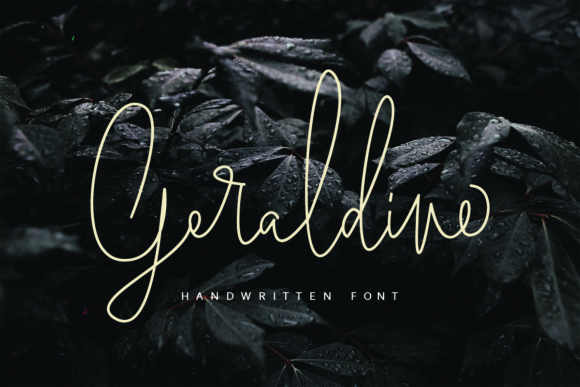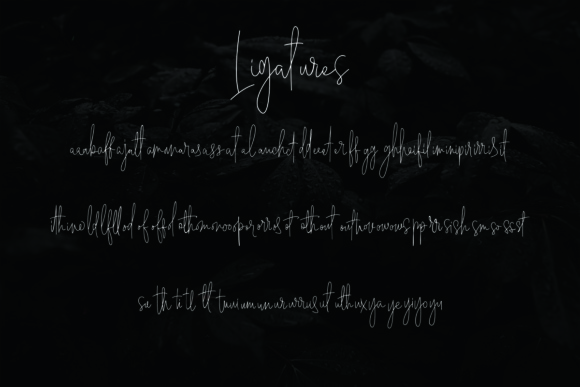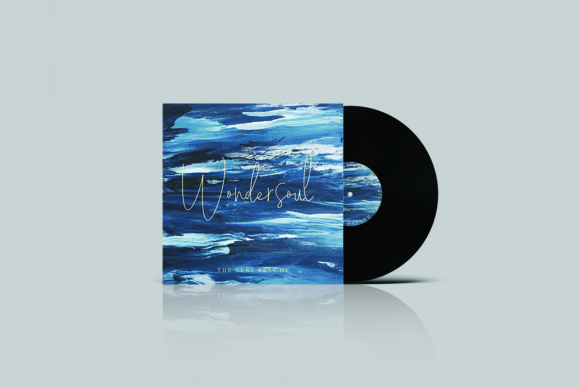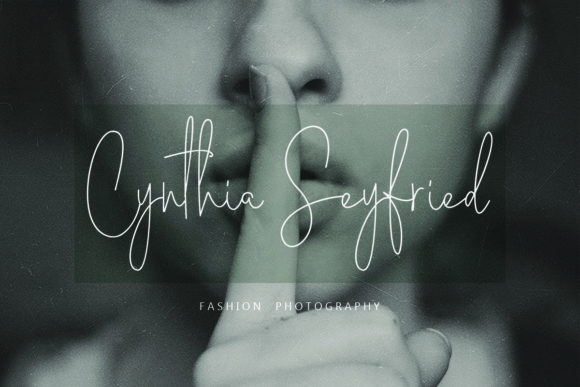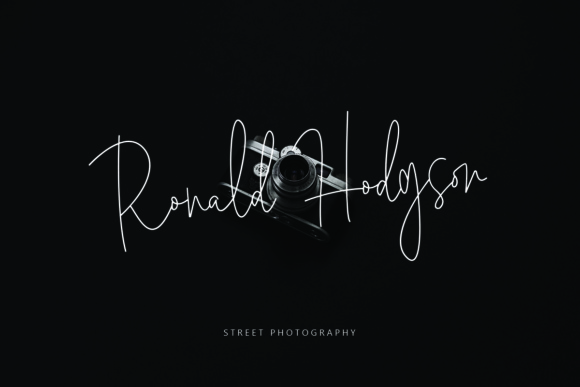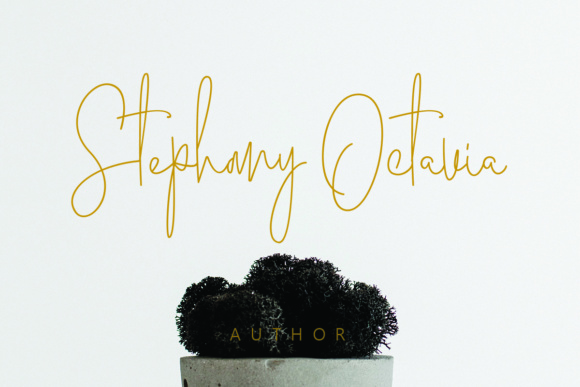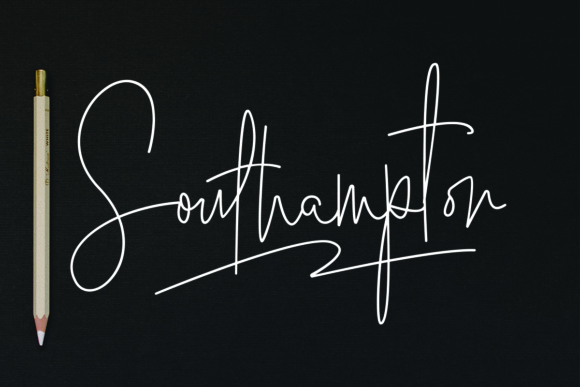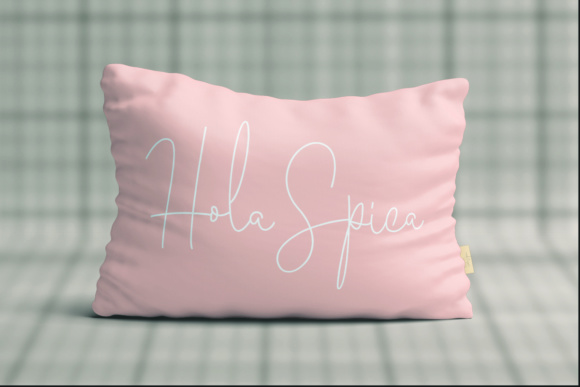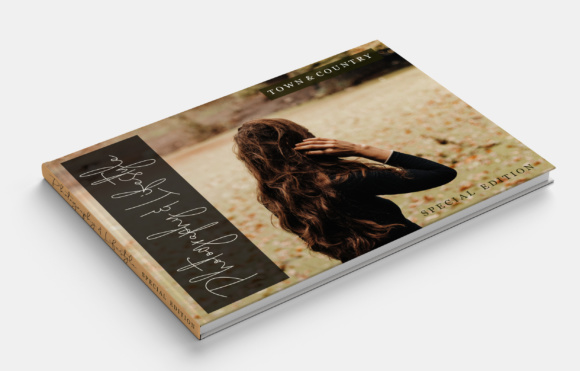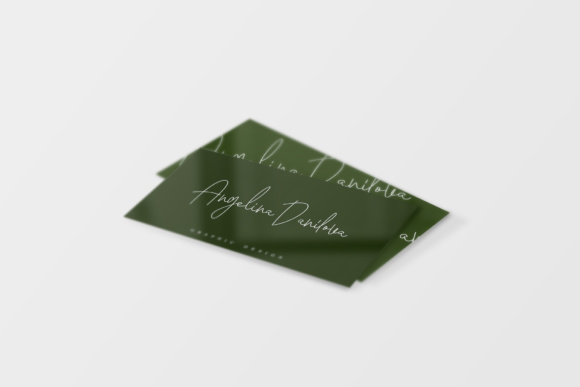
Geraldine Font
About Geraldine Font
The Geraldine handwritten signature font is suitable for branding, and has carefully been crafted to have a professional look.